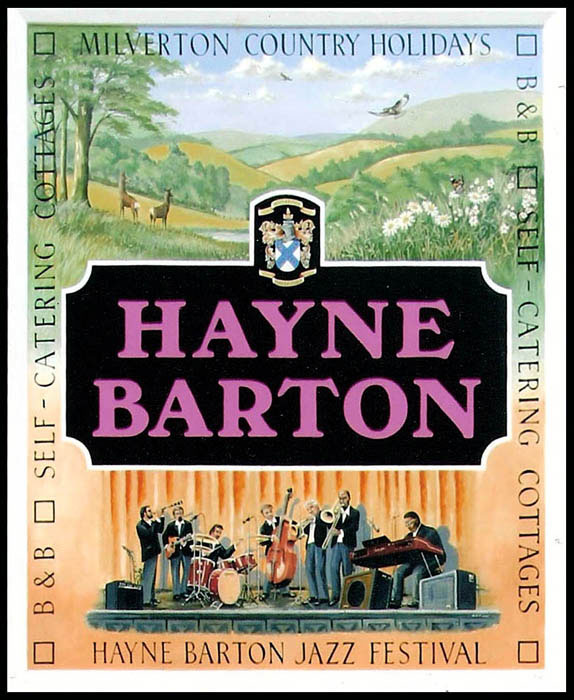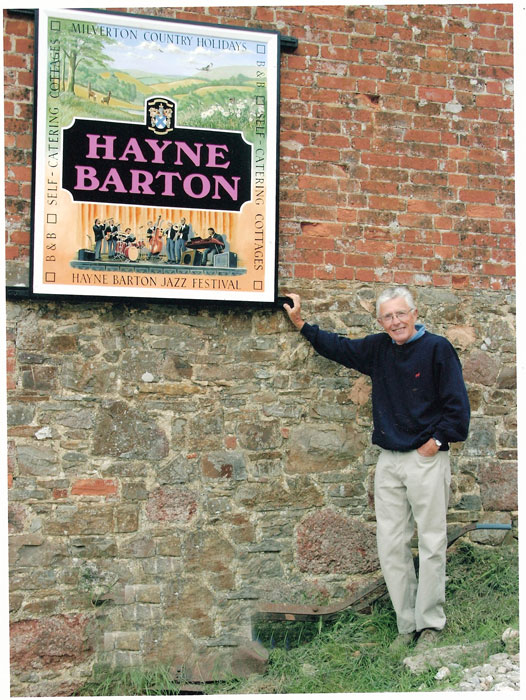
I recently got together with my mentor Gordon Farr. I met Gordon at the weekend for the first time since 1992 . I started work with Gordon in 1983 at 15 years old
He is now 73 and for the first time in 16 years he has made this sign which was all hand painted free hand without drawings for text. I used to watch Gordon write the most beautiful Trajon Roman letters using a chalk line to mark out and then he would handpaint the letters at half inch tall onto honours boards and then he would gild them. He also was very good at ticket writing and showcard work. He said the centre portion of this sign (the pink text) was there own logo.
It was great to see him again... just thought I would share this pictorial with you guy's